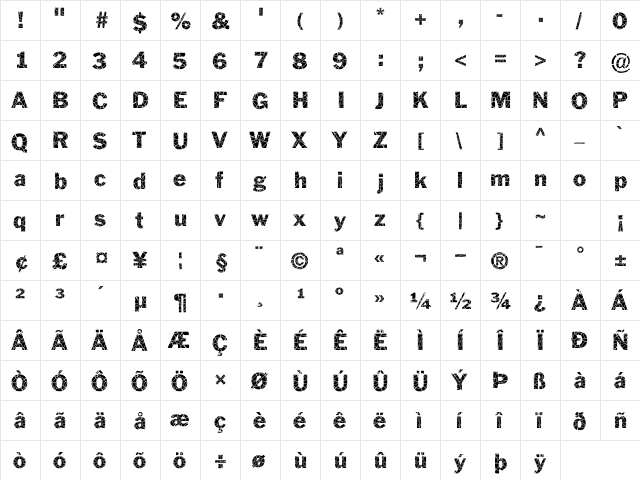
Philadelphia Cracked Normal
Design Context for Philadelphia Cracked Typeface
Philadelphia Cracked takes a measured approach to typography — its balanced proportions and neutral character make it a reliable workhorse for both digital and print work.
Pro Tip: Use Philadelphia Cracked in both headline and body roles to test its range before committing to a single application.